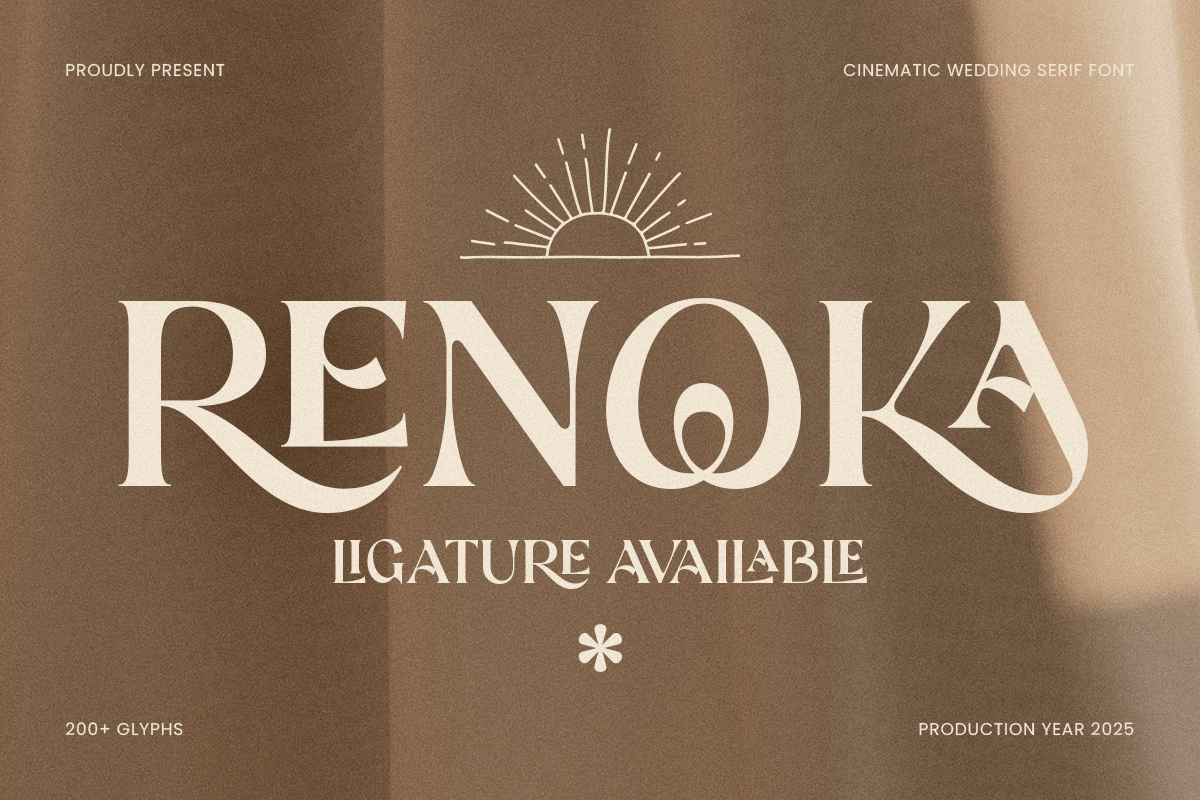
Renoka
-Cinematic Wedding Serif FontRenoka - Cinematic Wedding Serif Font
RENOKA is a cinematic wedding serif font crafted with timeless elegance and refined details. Designed to bring sophistication to wedding stationery, luxury branding, and romantic editorials, RENOKA’s graceful serifs and subtle contrast create a perfect balance between classic beauty and modern charm.
With its cinematic flair, RENOKA elevates invitations, logos, magazine covers, and upscale packaging. The font’s delicate curves and carefully shaped serifs offer a premium look — making it an ideal choice for designers seeking both style and versatility in their creative projects.
Whether you’re designing for a wedding, high-end event, fashion label, or elegant editorial, RENOKA delivers a heartfelt, sophisticated presence.
RENOKA – Cinematic Wedding Serif Font Features
Classic cinematic serif letterforms
Perfect for wedding stationery, branding, and editorial
Beautiful ligatures and stylistic alternates
Works beautifully in print and digital designs
OpenType features for advanced typography
Bring cinematic romance to your designs with RENOKA – the perfect wedding serif font for timeless elegance. 💍✨